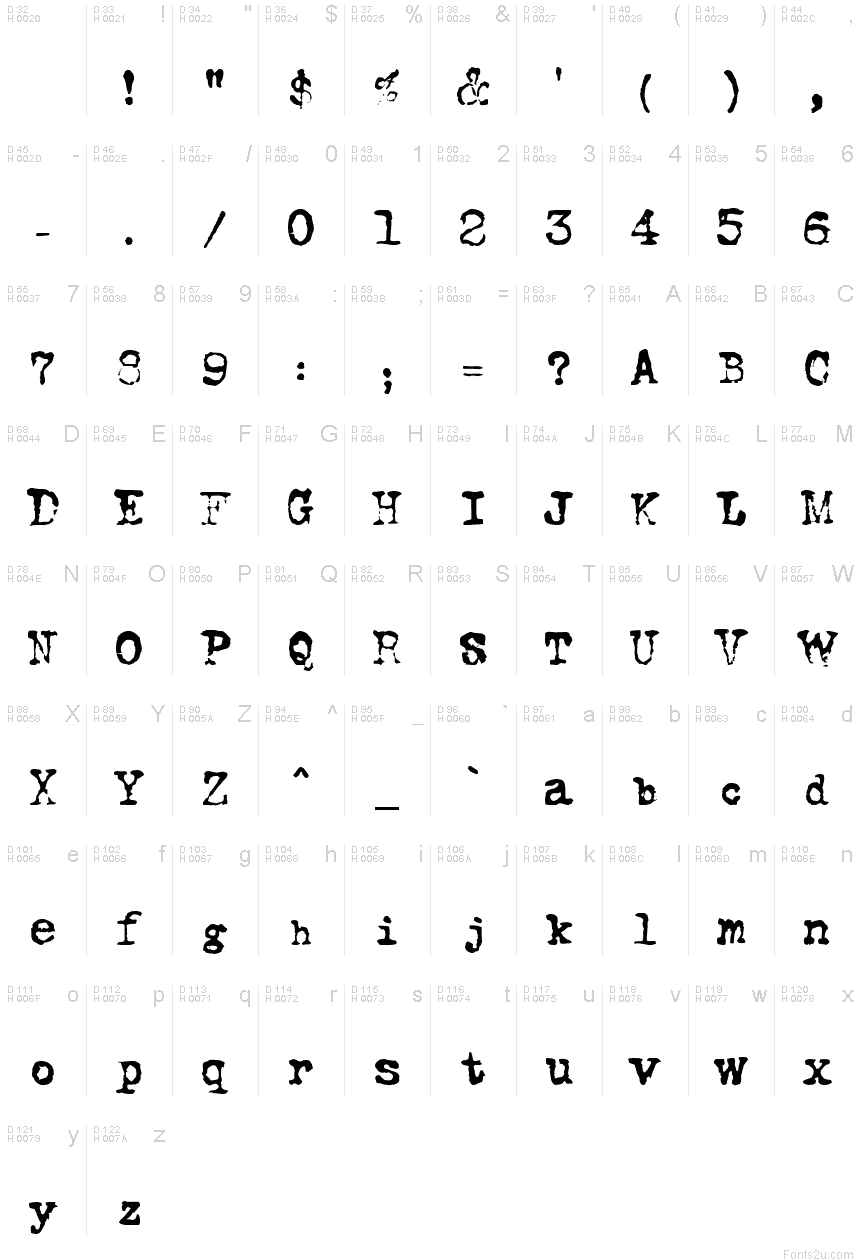
FoxScript Normal
FoxScript font by Josep Patau I Bellart & Astramat is a free eroded decorative display typeface that looks like it’s been drenched in ink and left to drip dry. Each letter feels hand-spattered and irregular, with chunky silhouettes and torn edges that give text a raw, splattered texture. The result is noisy, tactile, and full of motion, as if the words are still wet on the page.
Using FoxScript, headlines instantly pick up a grungy, underground attitude that’s hard to fake. This free font works beautifully for gig posters, horror titles, zines, extreme sports branding, escape room graphics, and bold cover art. Keep it big and bold, then pair it with a clean, narrow sans serif for body copy so the wild edges stand out without overwhelming your layout.